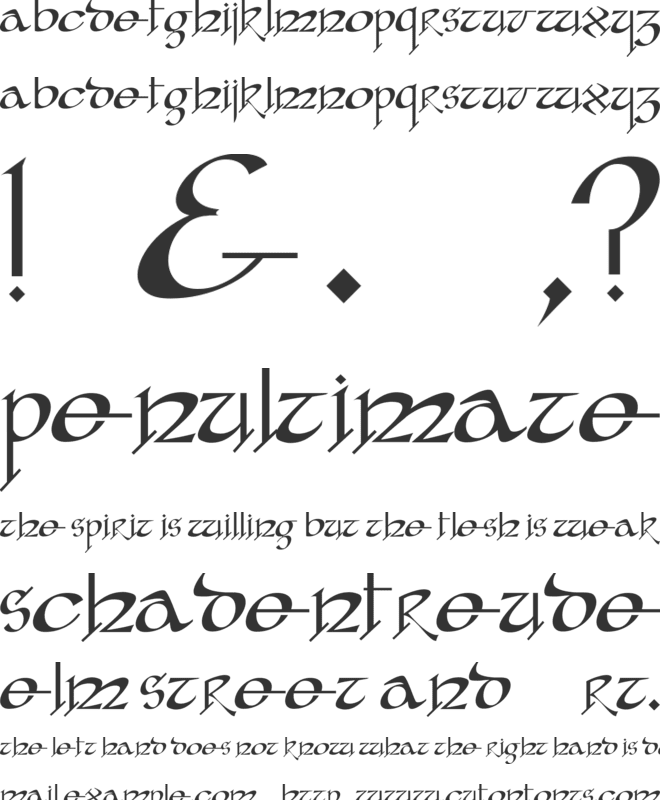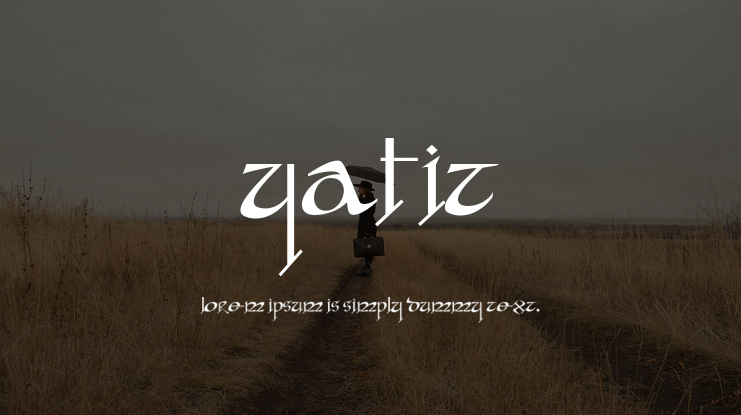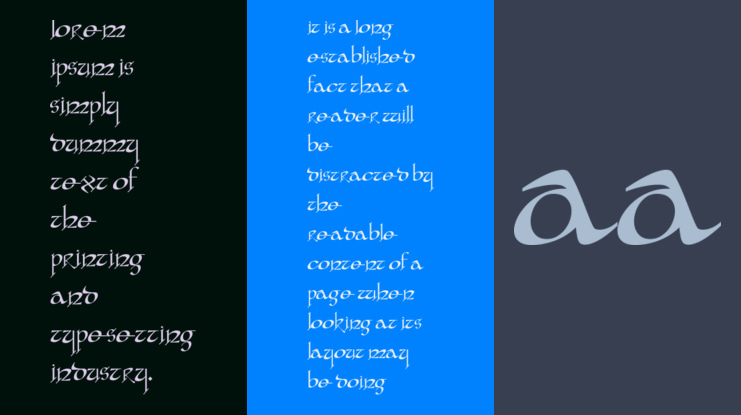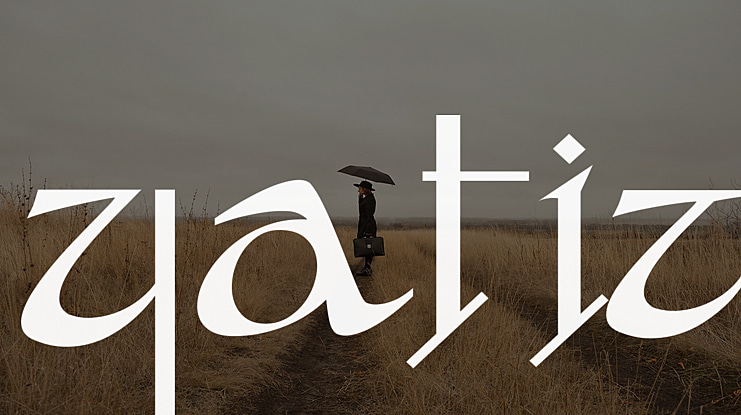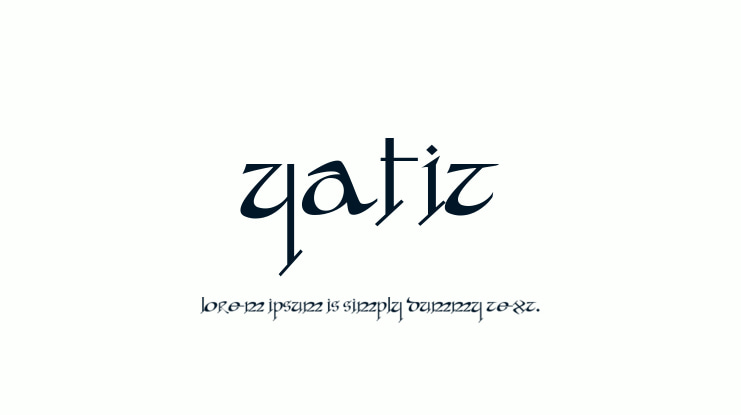
yafit Font
Yet Another Fine Insular Typeface.
This is a typeface I made for a typography class.
It is made in the style of the scripts used in Medieval Illuminated Manuscripts.
This style , and similar styles, are called Insular, Gaelic, Unical, Caroline, or Celtic.
I may expand and refine it in the near future.